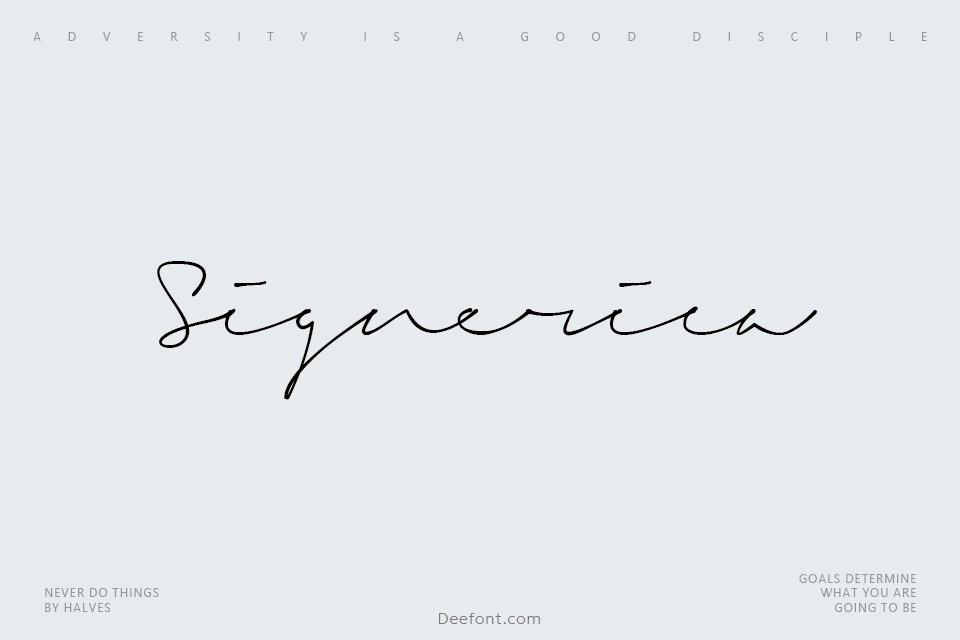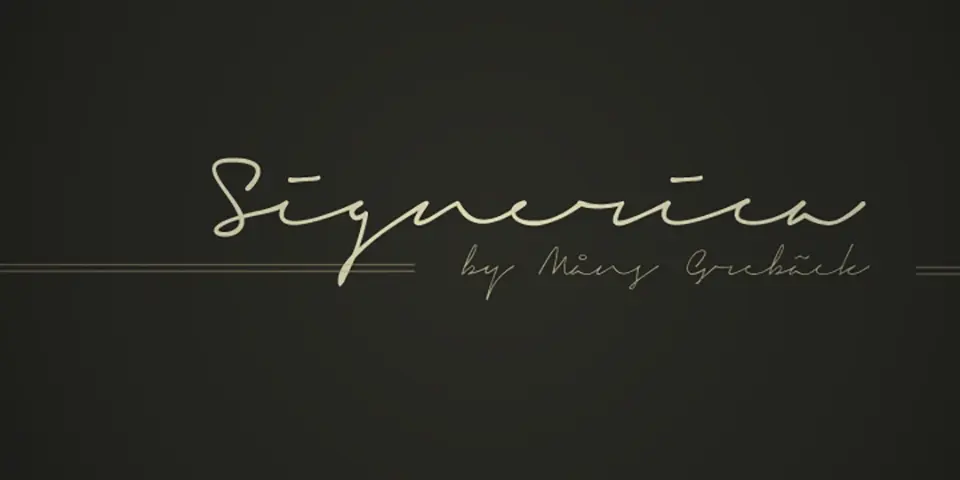
Signerica Font
Signerica is an elegant handwritten script font designed by Swedish typeface designer Måns Grebäck. This sophisticated font family features three distinctive styles—Fat, Medium, and Thin—each offering bold and dynamic letterforms with graceful flowing characteristics. The font includes beautifully executed swashes, elegant loops, and intricate connecting lines that create a sense of movement and harmony. With multilingual support and 363 glyphs, Signerica is versatile for designers worldwide. Its personal, hand-crafted feel makes it ideal for headlines, logos, branding, and creative projects that demand elegance and visual impact.